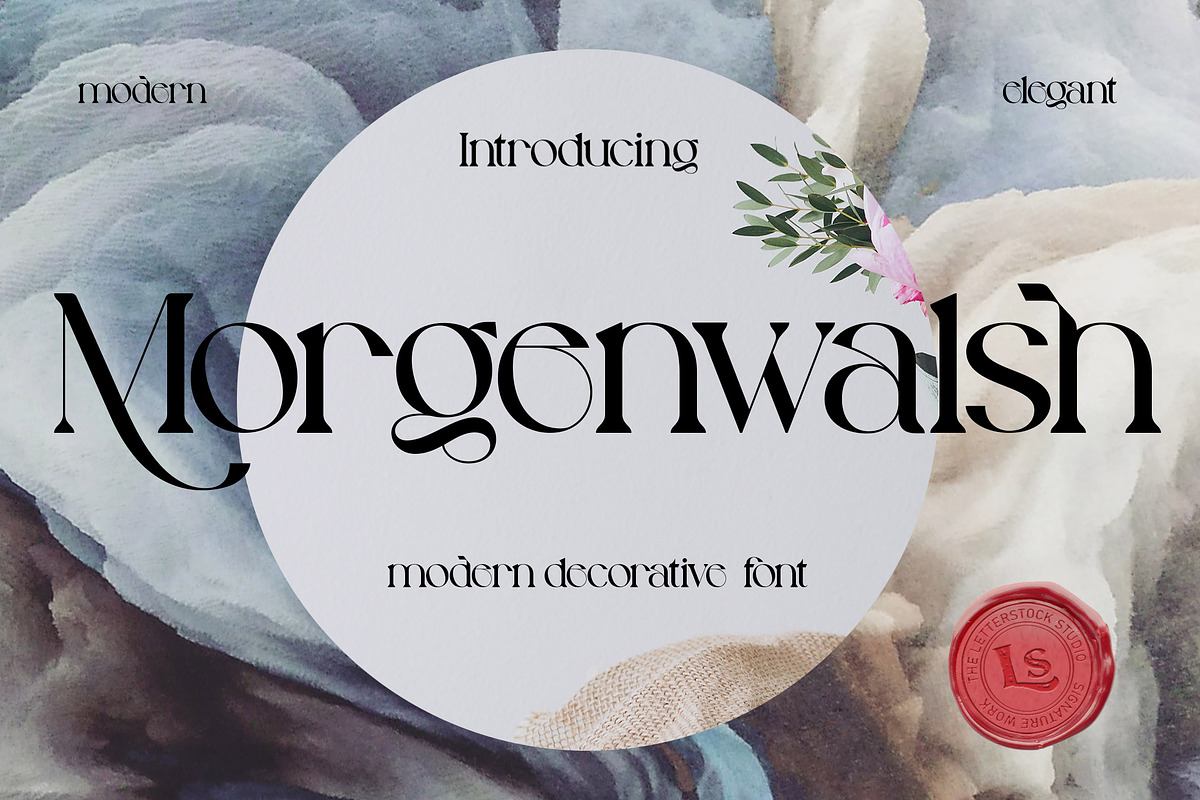
Morgenwalsh Font Free Download is a refined and artistic serif typeface that blends traditional elegance with a modern design twist. Featuring sharp serifs, stylish curves, and high contrast between strokes, this font is ideal for editorial layouts, branding, luxury packaging, fashion lookbooks, and high-end advertising.
Its timeless character and detailed craftsmanship make Morgenwalsh stand out in both print and digital designs. Whether you're crafting a sophisticated logo or designing a chic magazine spread, this font delivers class, clarity, and visual appeal.